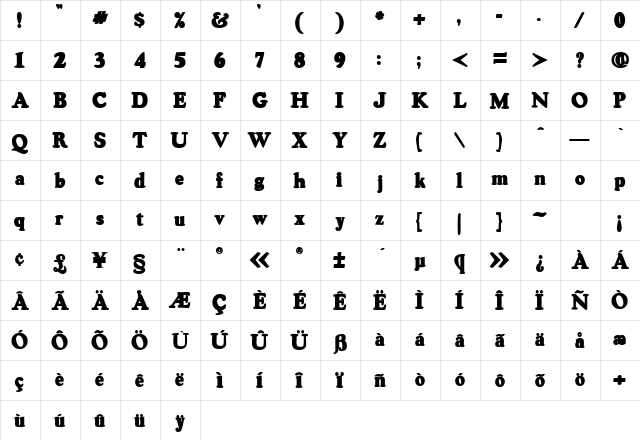
BeaconBlackSSK Bold
Design Context for BeaconBlackSSK Typeface
BeaconBlackSSK is a composed and adaptable typeface that performs quietly and consistently across a wide range of design contexts. The heavy weight commands attention and anchors typographic hierarchies.